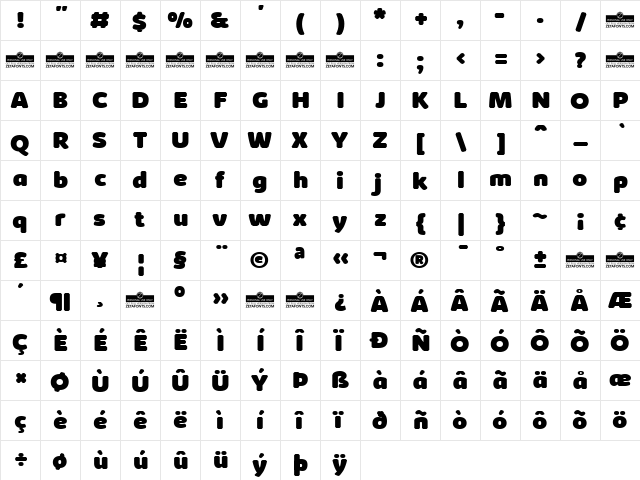
Kabrio Abarth Heavy
| Foundry | studio kmzero |
| Designer | Corimo Lorenzo Pancini |
Design Context for Kabrio Abarth Typeface
Kabrio Abarth is a composed and adaptable typeface that performs quietly and consistently across a wide range of design contexts.